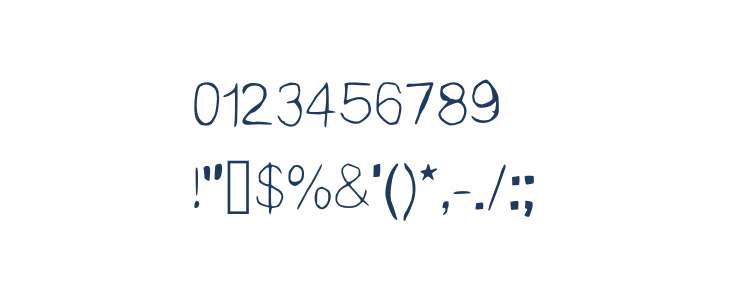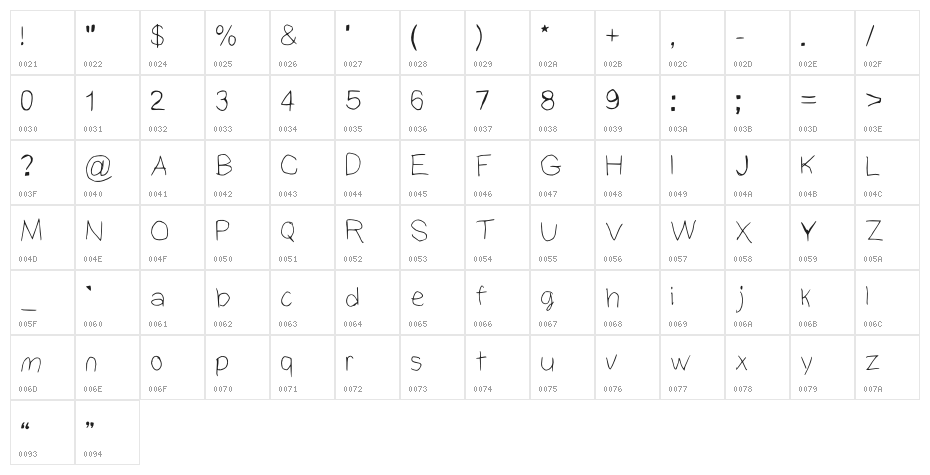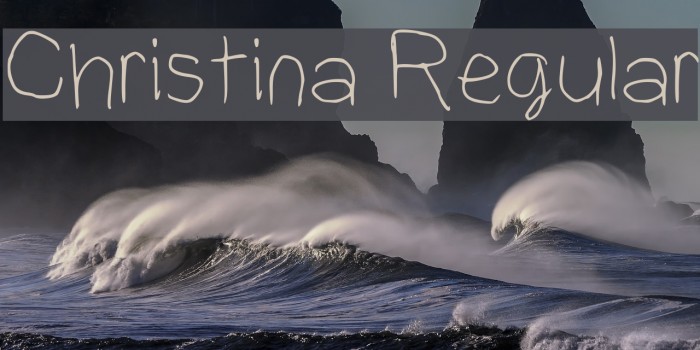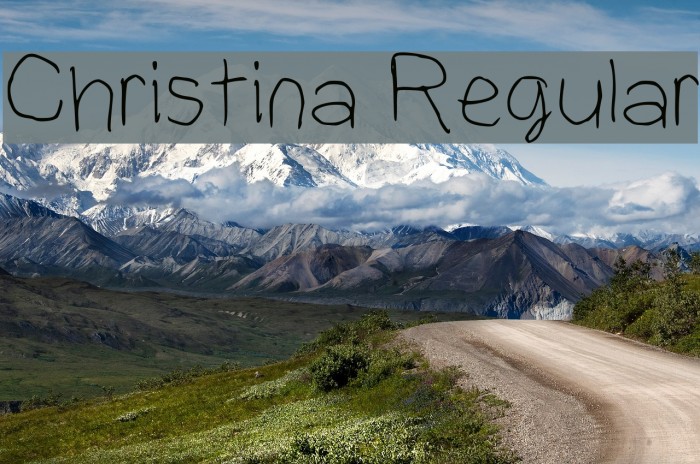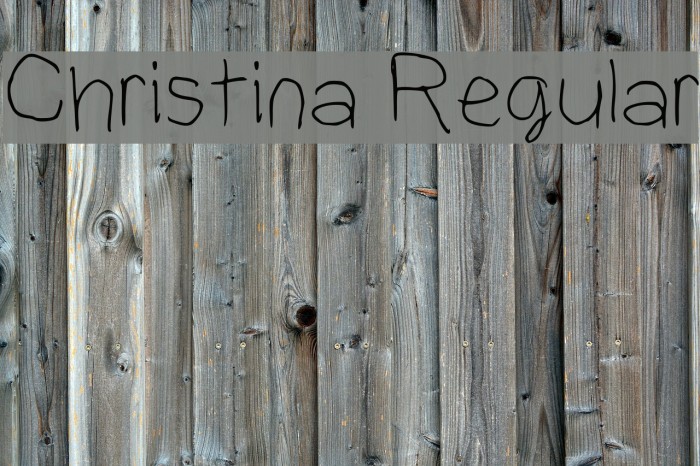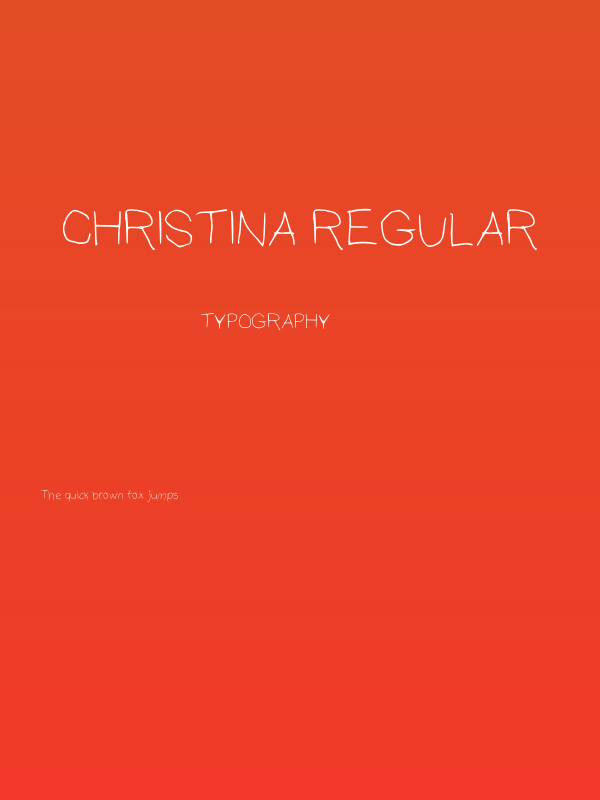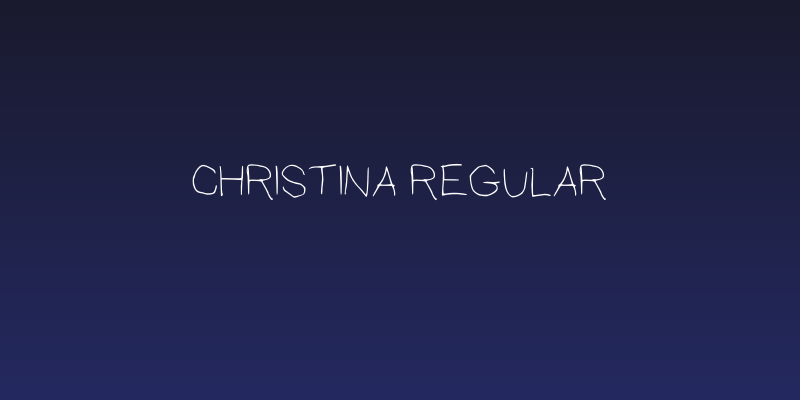
Christina Regular Font
Christina Regular Description
This font features a playful and whimsical handwritten style, characterized by its irregular strokes and casual appearance. The letters have a slightly uneven baseline, giving them a dynamic and lively feel. The uppercase letters are tall and narrow, while the lowercase letters maintain a consistent flow with rounded edges. The numerals are distinct and match the overall playful aesthetic. Special characters are included, maintaining the same quirky style. This font is perfect for projects that require a personal touch or a creative flair.
| Overall Style | Whimsical |
| Use Case | Headlines, Creative projects, Personal branding |
| Proposed Projects | Ideal for greeting cards, children's books, creative posters, and personal branding. |